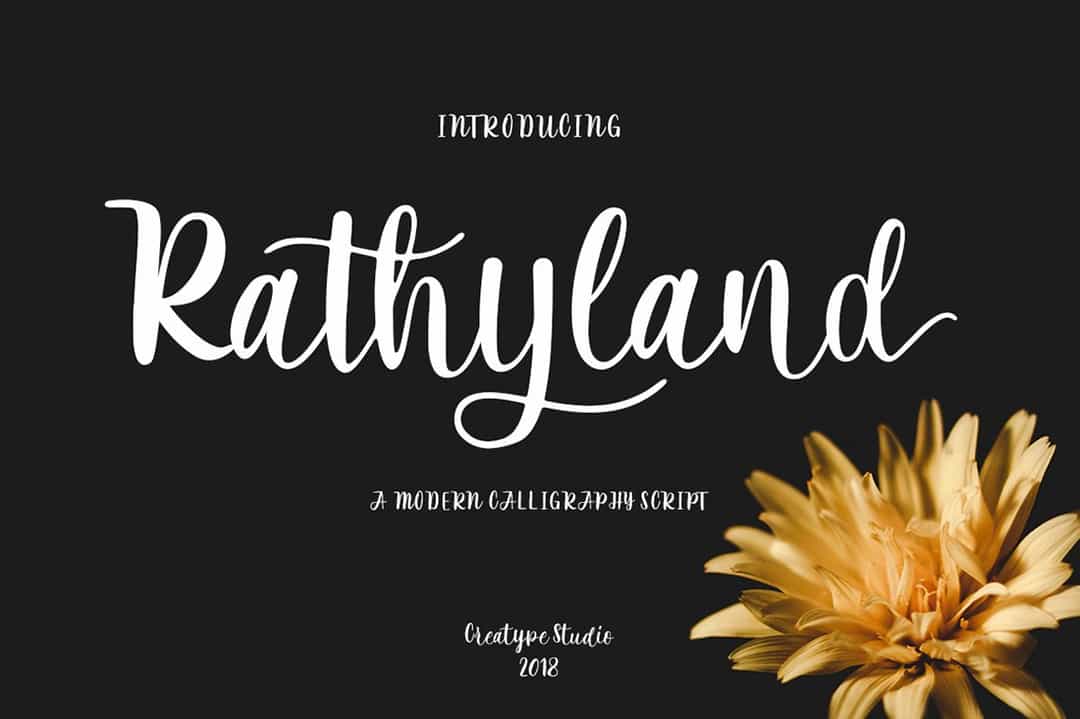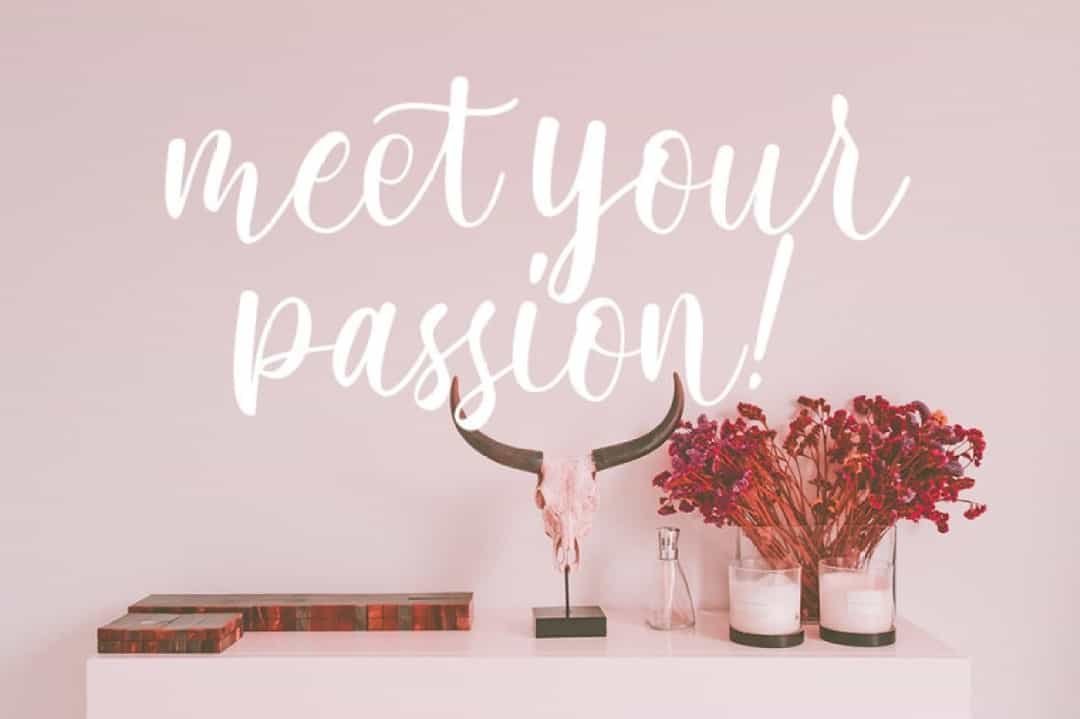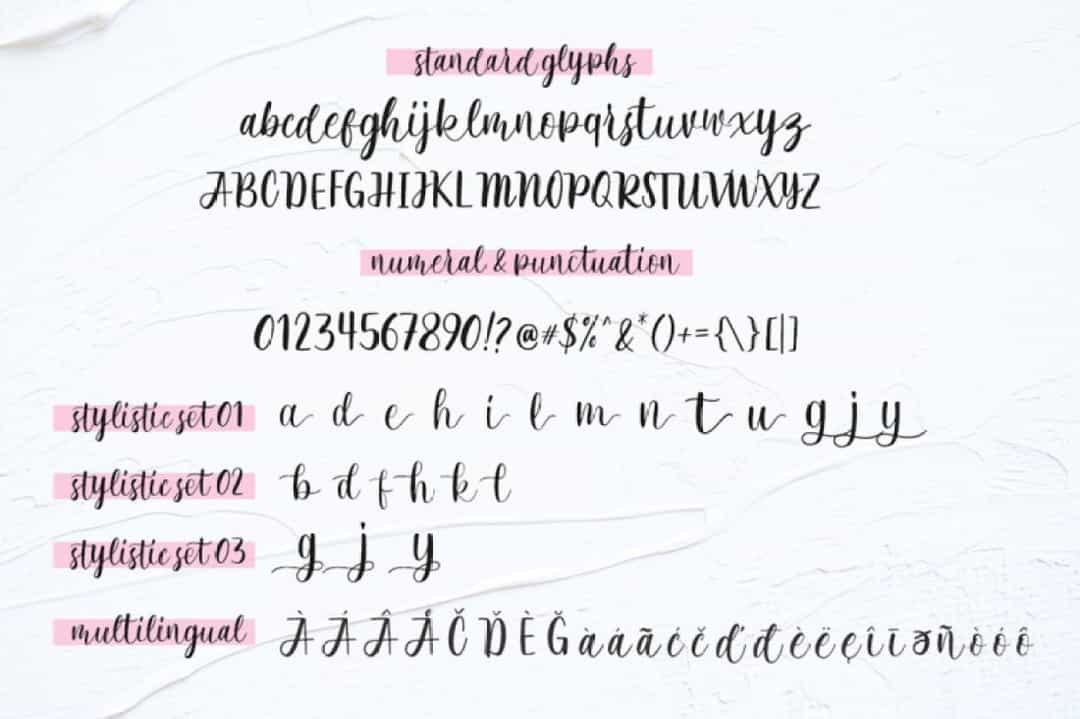
Rathyland is a modern calligraphy script font with a handwritten style which makes it look stylish, elegant, and natural and therefore ideal for any cool projects that require a handwriting taste. This font is suitable for many other projects, including logos & branding, invitation, station, wedding designs, social media posts, advertisements, product packaging, product designs, label, photography, watermark, special events or anything.